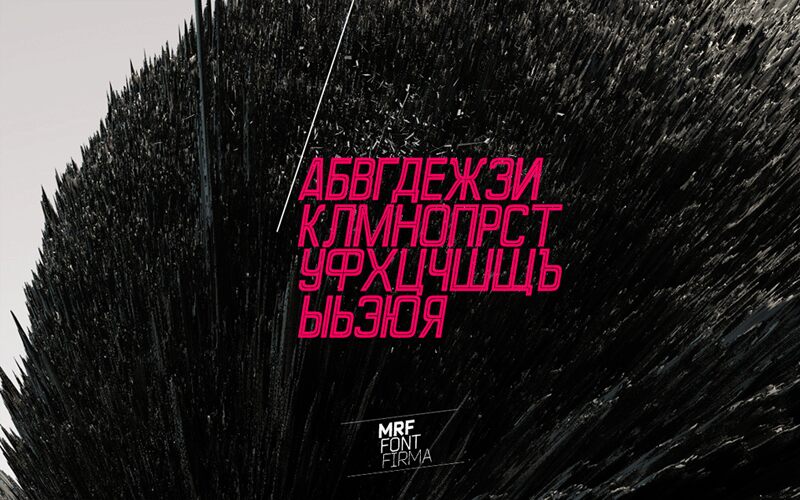
Perforama Italic by Alexey Frolov of Mr. Frukta is a free outlined display font with an extremely tall, narrow stance. Changing stroke widths keep the slanted capitals taut and engineered.
Retro-futurist graphics are its clearest setting, especially music posters and science-fiction publishing that benefit from the lettering's speed and scale. Fashion branding can also use its lean silhouette for a sleek, slightly theatrical edge. It is strongest in poster titles, where the stretched forms become the main image.